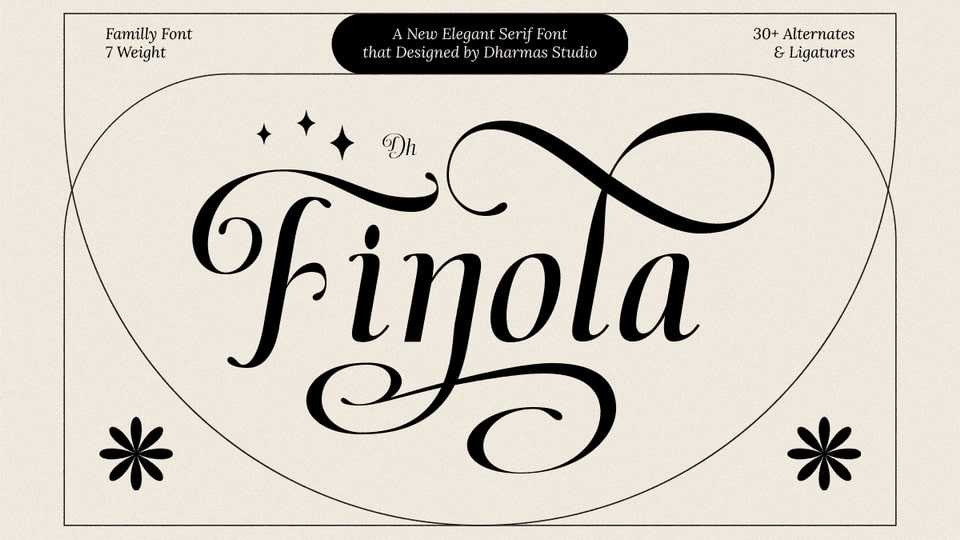
Download Dh Finola font, a luxurious serif typeface inspired by the beauty of Baroque architecture and classical calligraphy with its graceful swashes, high-contrast strokes, and flowing curves.